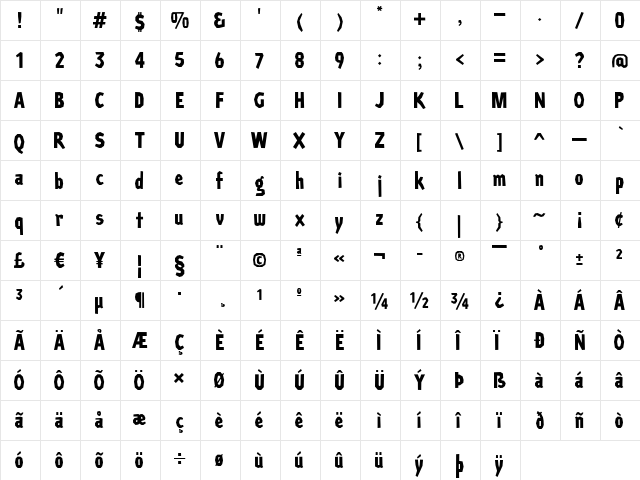
PAtronne Grosse Font Preview
PAtronne Grosse
PAtronne Grosse Font Details
| Style | Grosse |
Design Context for PAtronne Typeface
PAtronne offers clean, dependable letterforms without strong stylistic allegiance, making it a practical choice for designers who need flexibility.
Pro Tip: Pair PAtronne with a font of contrasting weight or personality to build a more expressive typographic hierarchy.